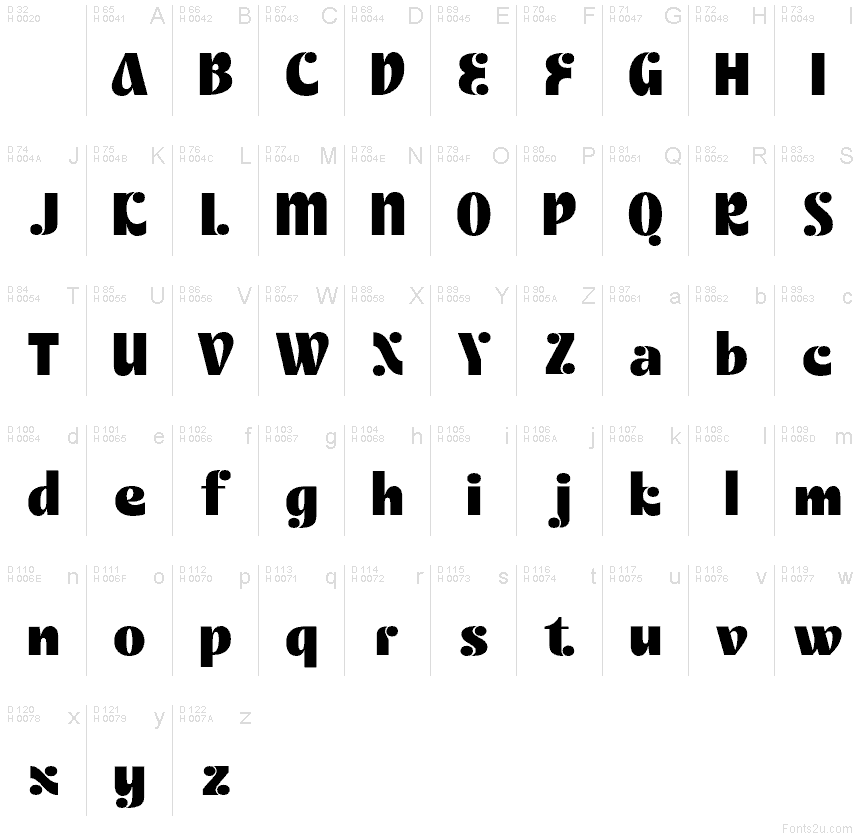
CS Evora Regular Demo
CS Evora font by Craft Supply Co. is a free bold decorative serif display font. It stands out with petal-shaped counters and knife-cut apertures that carve light into the heavy strokes, creating a lush, inky rhythm. The high contrast and sculpted ball terminals feel tactile—like letterforms poured and polished—so headlines snap while still feeling luxe and human.
Using CS Evora, titles and wordmarks gain presence without shouting. This free font shines on boutique branding, wine or candle labels, editorial covers, event posters, and high-end packaging. Set it large with a touch of extra tracking to let those carved interiors breathe; pair with a clean, unobtrusive sans like Inter or a neutral grotesk for body copy.